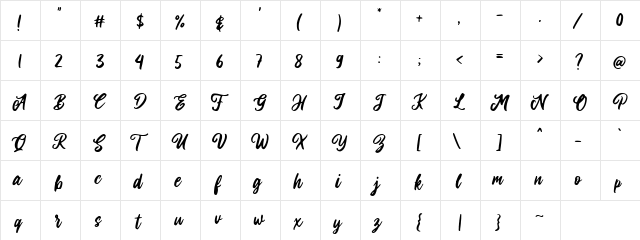
Laritta Regular
| Foundry | Weape Studio |
| Designer | Wahyu Andi |
Design Context for Laritta Typeface
Laritta is a composed and adaptable typeface that performs quietly and consistently across a wide range of design contexts.